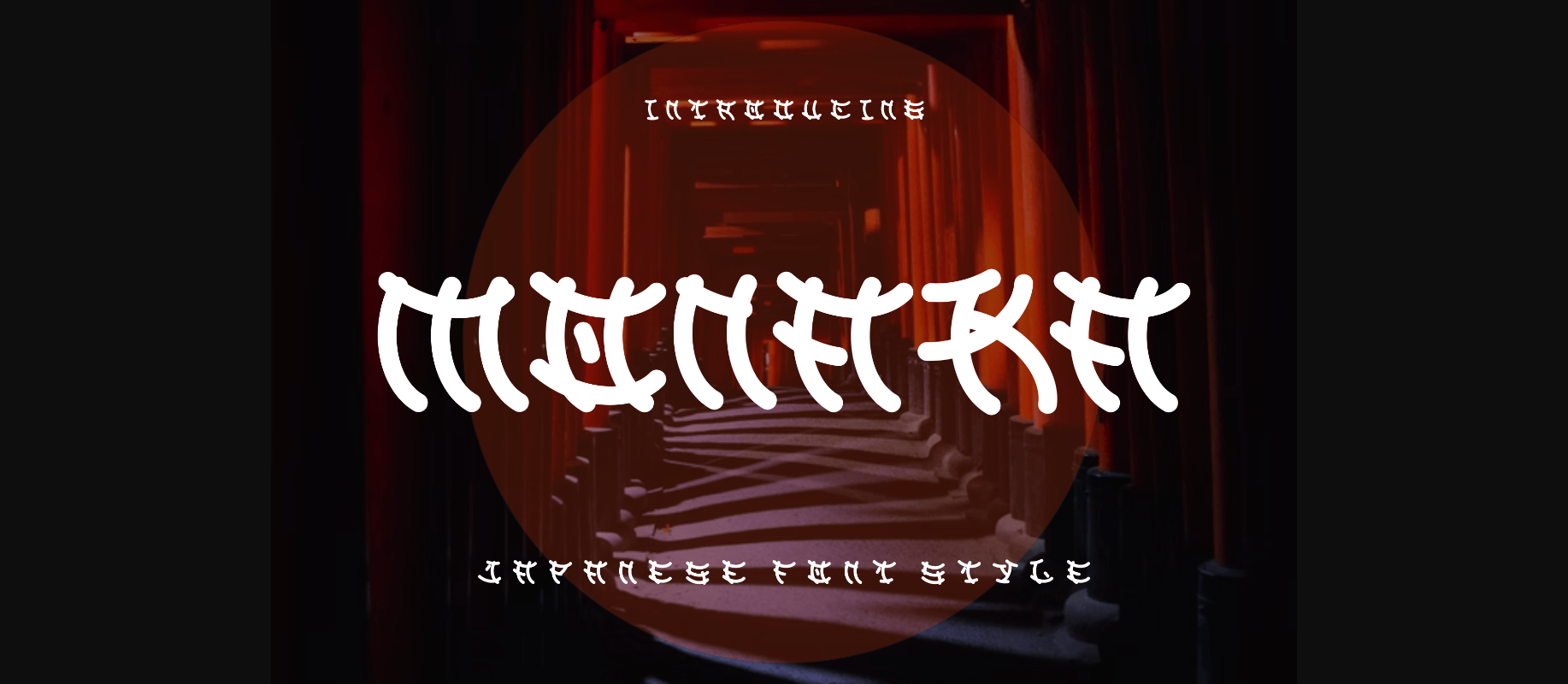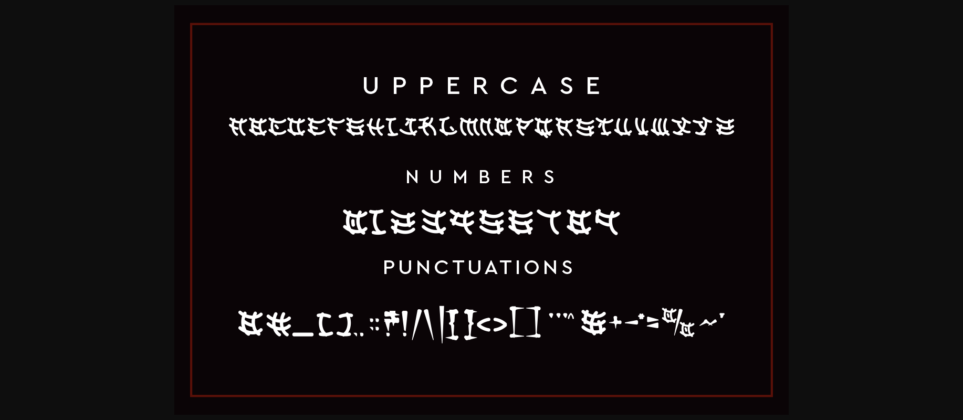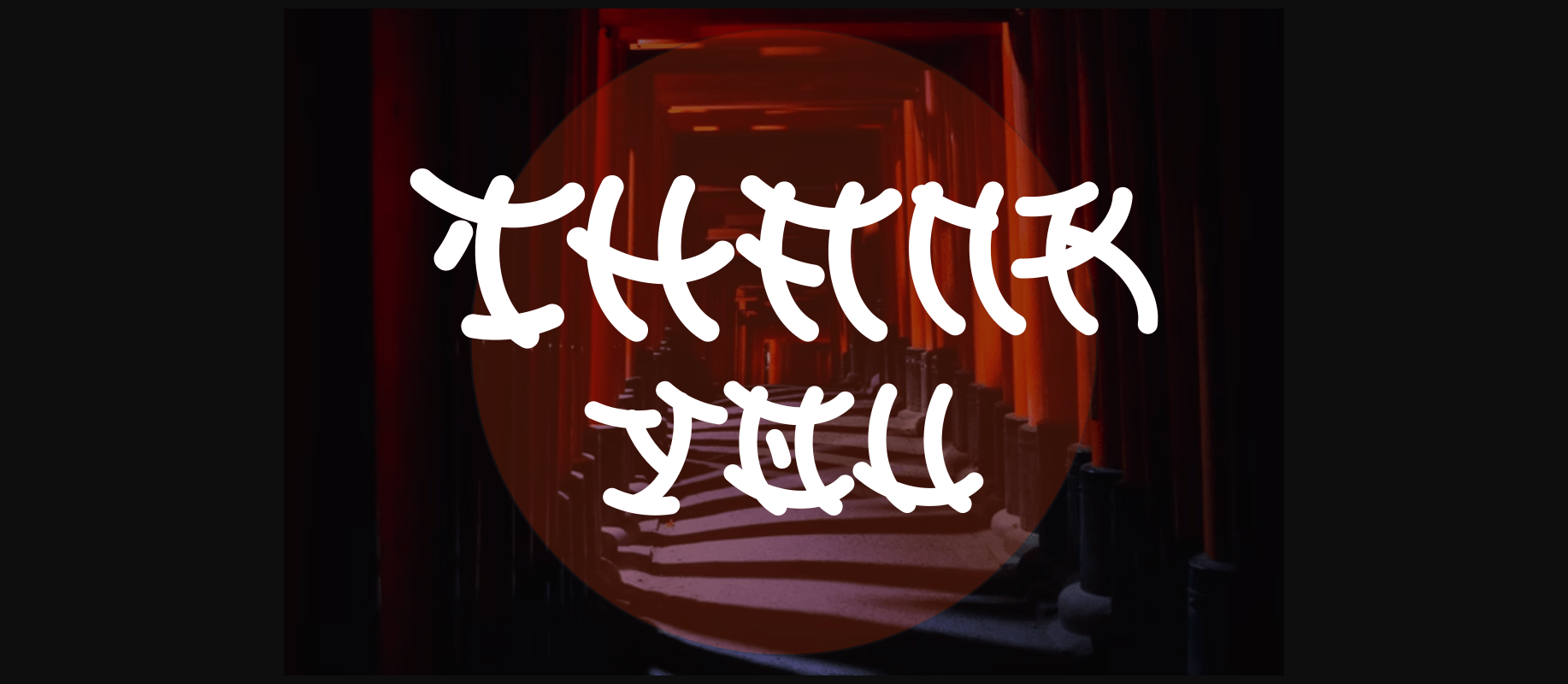
About Monaka Font
Monaka is a unique decorative font that feels charming and modern. This font is perfectly suited for a wide variety of projects, such as signature, stationery, logo, wedding, typography quotes, magazine or book cover, website header, clothing, branding, packaging design, and more.